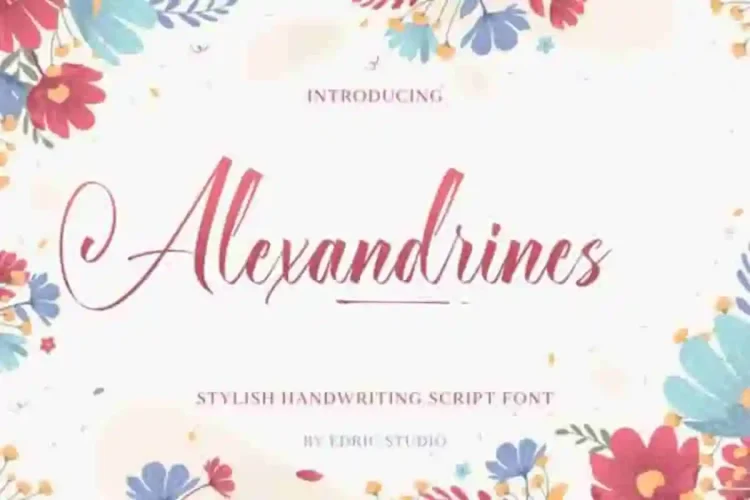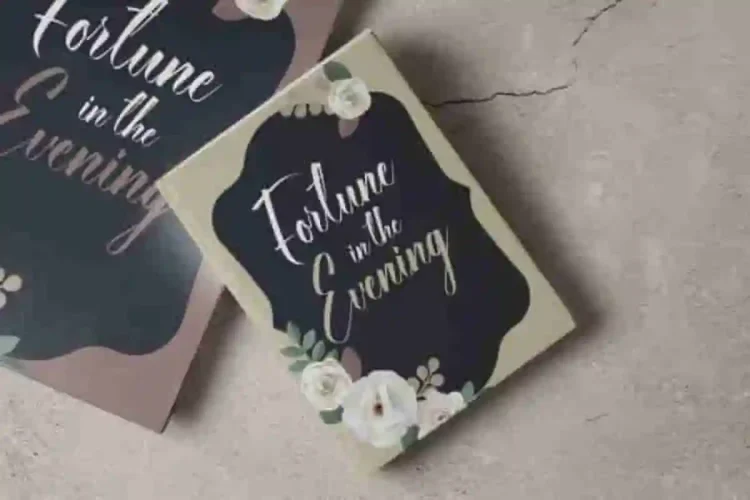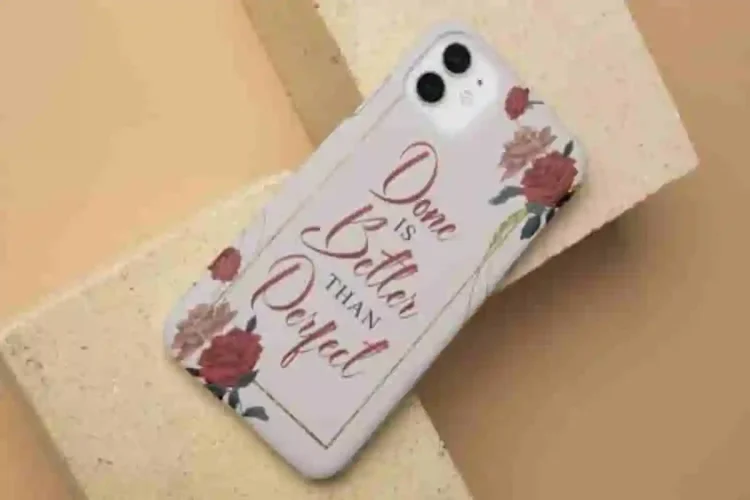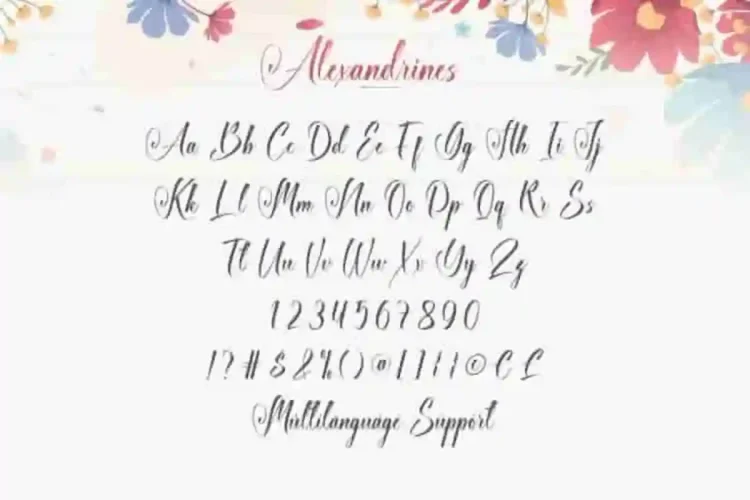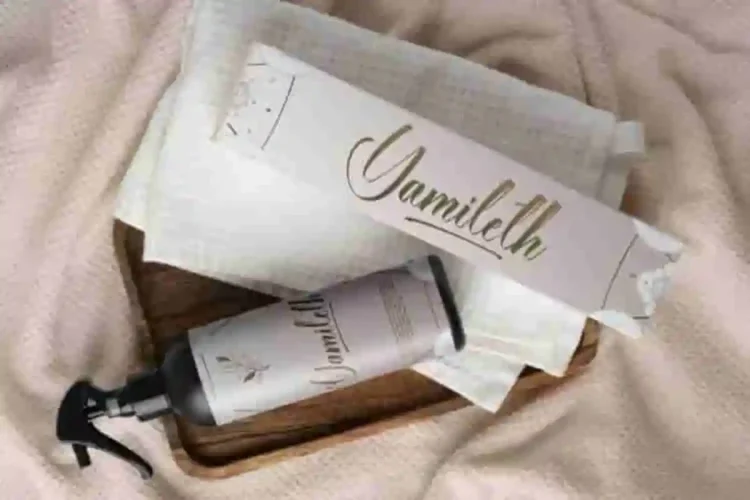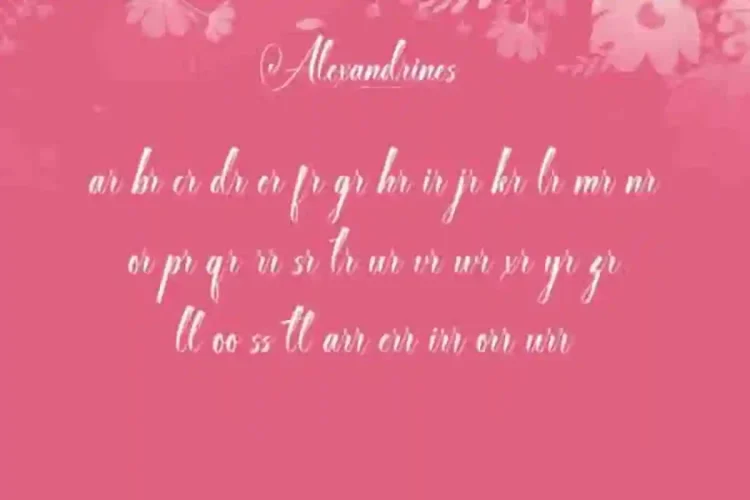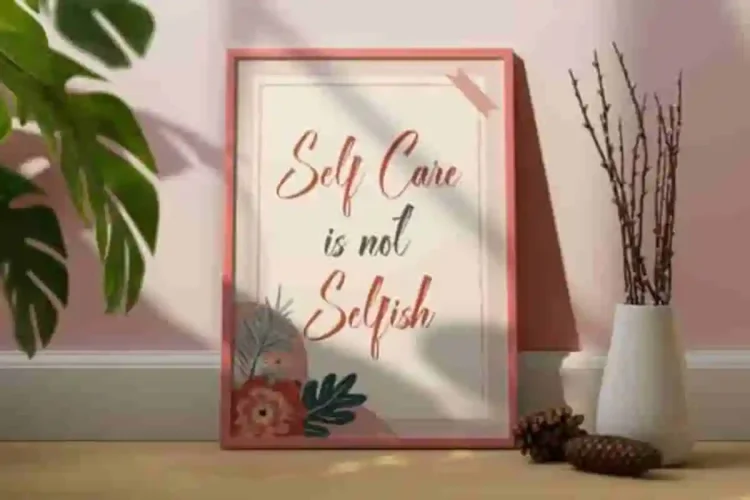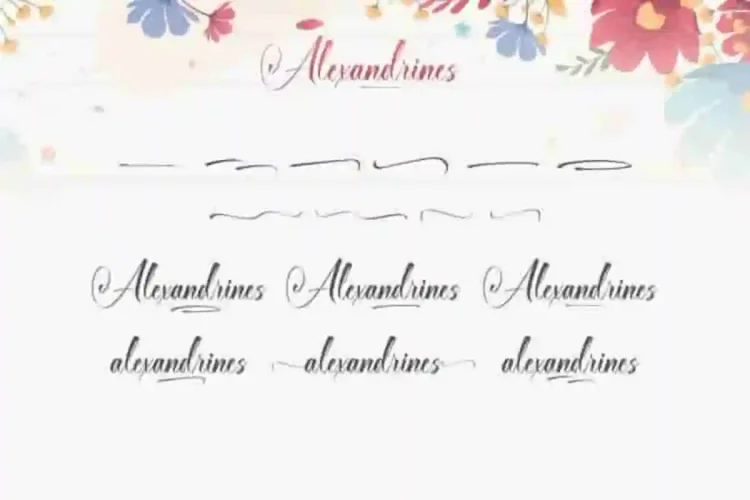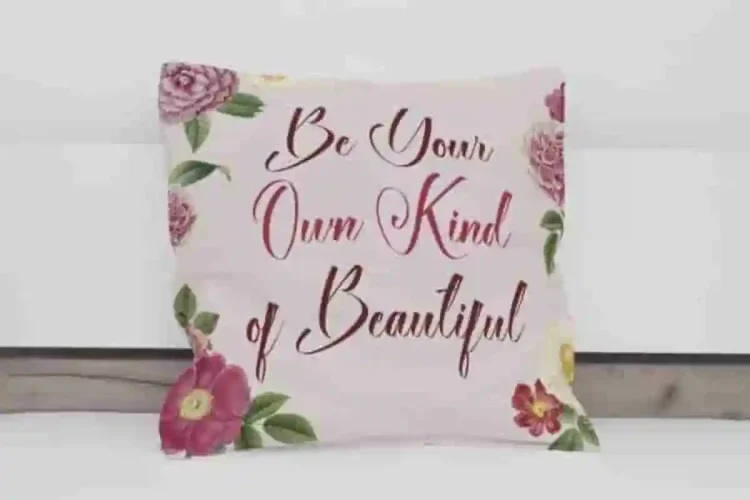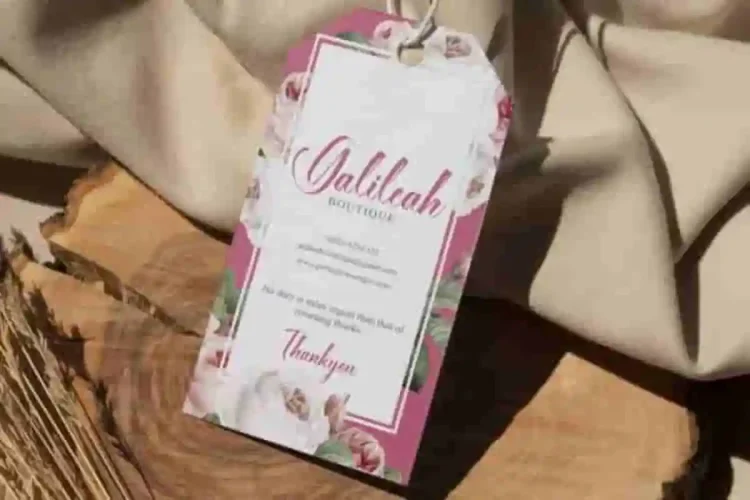
Alexandrines Font is a stylish handwriting calligraphy font created by EdricStudio. With its smooth strokes, elegant curves, and perfect readability, this font blends luxury with a personal handwritten feel.
Alexandrines Handwriting Script Font ideal for industries like accessories, boutiques, cosmetics, furniture, hotels, restaurants, photography, and wedding organizers, Alexandrines Font delivers timeless beauty with a modern twist. It has a stunning characters set, perfectly managed with well spaced and kerning.
Alexandrines Font is a playful typeface with unique decoration in each character. It’s tested to work well in the Adobe Apps (Illustrator, Adobe InDesign, Adobe Photoshop) even work on Microsoft Word. PUA Encode Characters means you can access all the glyphs and swashes with ease – Fully accessible without additional design software.